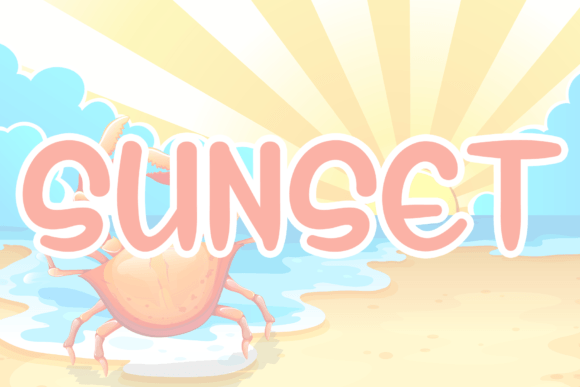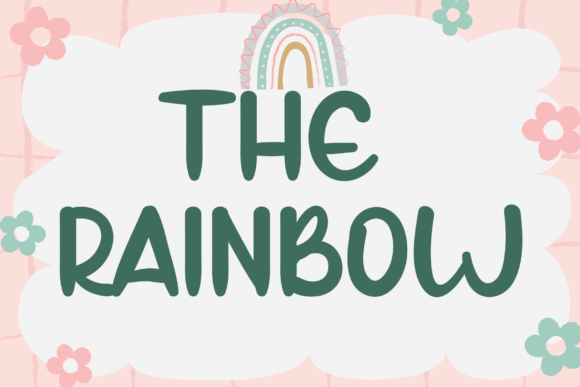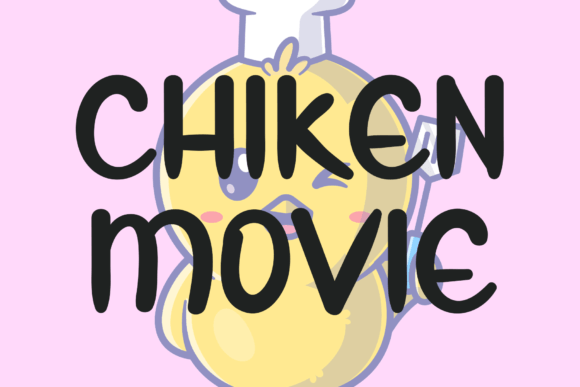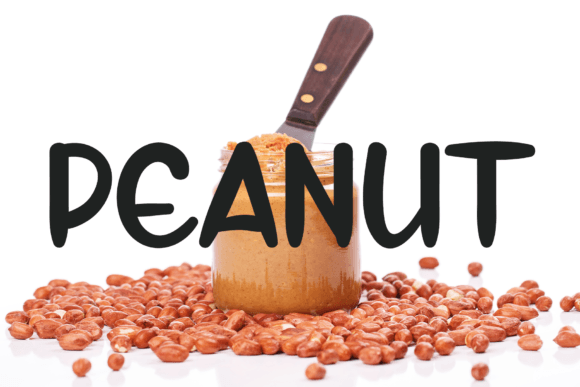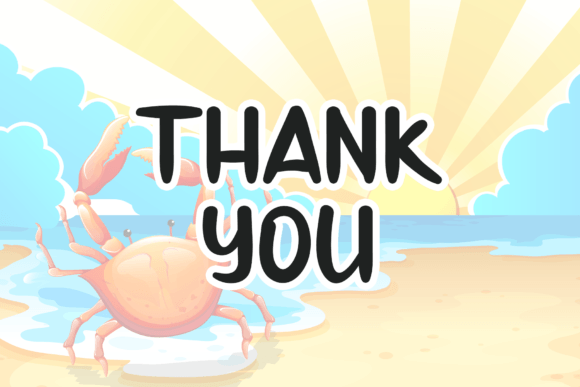
Crab Font: The Perfect Addition to Your Design Arsenal
Are you a designer or crafter looking for a font that can add a touch of personality to your creations? Look no further than Crab Font! This bold and friendly display font is perfect for a variety of design projects, from wedding invitations to greeting cards and more. In this article, we’ll dive into the world of Crab Font and explore its features, benefits, and uses.
What is Crab Font?
Crab Font is a display font that exudes a sense of fun and relaxation. Its bold and friendly design makes it perfect for adding a personal touch to your designs. Whether you’re creating wedding invitations, birthday cards, or social media graphics, Crab Font is sure to make your designs stand out.
Key Features of Crab Font
- Bold and Friendly Design: Crab Font features a bold and friendly design that’s perfect for making a statement.
- Fun and Relaxed: This font is ideal for designs that require a playful and carefree touch.
- Highly Versatile: Crab Font can be used for a wide range of design projects, from wedding invitations to social media graphics.
- Easily Readable: Despite its bold design, Crab Font is easy to read, making it perfect for body text and headings.
Benefits of Using Crab Font
So, why should you choose Crab Font for your design projects? Here are just a few benefits of using this amazing font:
- Adds a Personal Touch: Crab Font adds a personal touch to your designs, making them more relatable and engaging.
- Perfect for Wedding and Party Designs: This font is ideal for wedding invitations, party invitations, and other celebratory designs.
- Great for Social Media Graphics: Crab Font can add a fun and playful touch to your social media graphics, making them more engaging and shareable.
Using Crab Font in Your Designs
So, how can you use Crab Font in your designs? Here are a few ideas to get you started:
- Wedding Invitations: Use Crab Font to create beautiful and unique wedding invitations that set the tone for the big day.
- Greeting Cards: Add a personal touch to your greeting cards with Crab Font, perfect for birthdays, holidays, and more.
- Social Media Graphics: Use Crab Font to create engaging social media graphics that showcase your brand’s personality.
- Party Invitations: Create fun and playful party invitations with Crab Font, perfect for kids’ parties, birthday bashes, and more.
Tips for Getting the Most Out of Crab Font
Here are a few tips for getting the most out of Crab Font:
- Experiment with Different Colors: Try pairing Crab Font with different colors to create unique and eye-catching designs.
- Use it in Combination with Other Fonts: Combine Crab Font with other fonts to create visually interesting and dynamic designs.
- Play with Font Sizes: Experiment with different font sizes to create visual hierarchy and add emphasis to your designs.
In conclusion, Crab Font is a versatile and fun display font that’s perfect for adding a personal touch to your designs. With its bold and friendly design, it’s ideal for a wide range of design projects, from wedding invitations to social media graphics. Whether you’re a designer or crafter, Crab Font is sure to become a staple in your design arsenal.